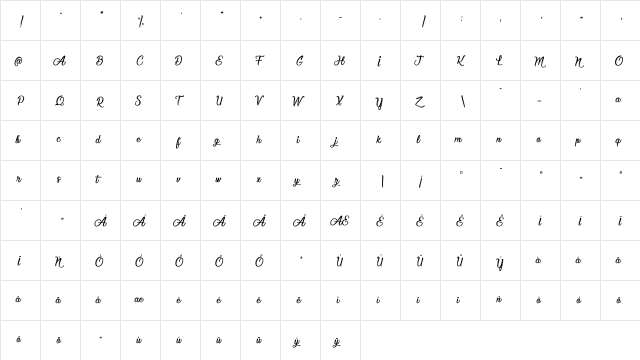
Elegant and Sensational Regular
| Foundry | Cataleya Butcher |
| Designer | Cataleya Butcher |
Design Context for Elegant and Sensational Typeface
Elegant and Sensational is a composed and adaptable typeface that performs quietly and consistently across a wide range of design contexts.